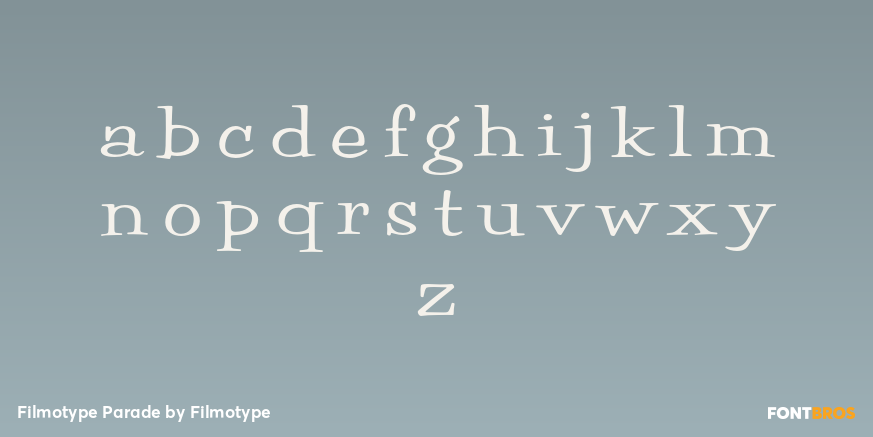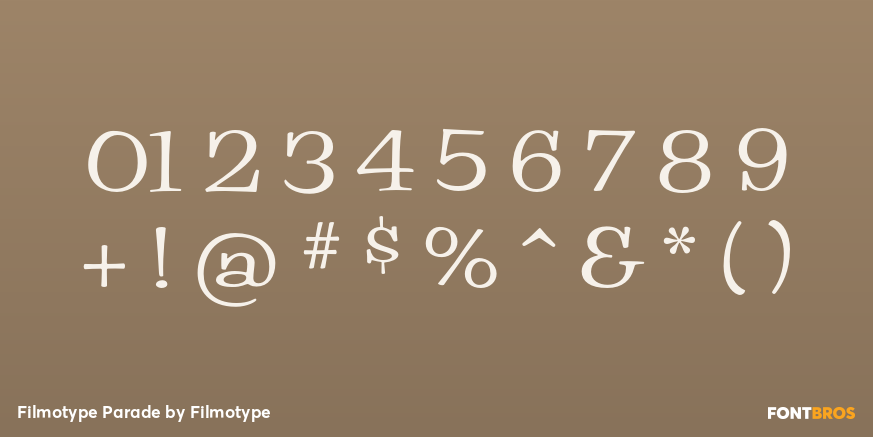
Filmotype Parade
Font Family by Filmotype
Introduced by Filmotype in 1955, Filmotype Parade was released to compliment to its slimmer cousin Filmotype Orlando and afford Filmotype's customers the ability to set the same playful casual look in an extra wide setting. This Free Style typeface captures a relaxed casual sho-card lettering style popular in grocery store and auto dealership advertising of the mid-1950s. Type designer Charles Gibbons expanded and developed a full range of styles based on exploring a variety of useful width variations. While it had been Filmotype's practice to generate width variant typefaces using camera stretching techniques, Gibbons instead mastered each alphabet at its native width and expanded weights to create exceptional typesetting throughout the family. The Filmotype Parade typeface was developed from the original font filmstrips and each additional weight was created as an inspired original. Each Filmotype Parade family member includes a full international character complement, automatic fractionals, ordinals, and a host of alternate characters in dynamic OpenType format.